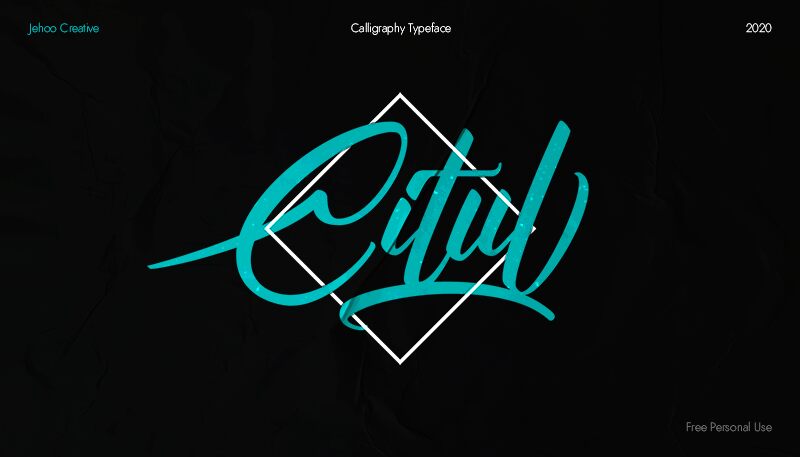
Citul
Citul, created by the talented designer Jehoo Creative, is a stunning calligraphy font that exudes elegance and sophistication. With its semi-light weight, Citul lends a graceful touch to any project it graces. Whether you're designing wedding invitations, crafting luxurious branding materials, or curating exquisite packaging designs, Citul will elevate your creations to new heights. Its flowing lines and intricate details make it perfect for creating beautiful logos or adding a touch of refinement to editorial layouts. Embrace the artistry of Citul and infuse your projects with timeless beauty.